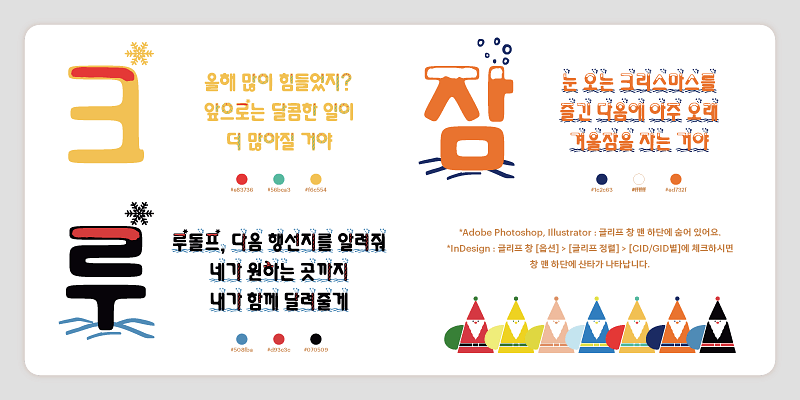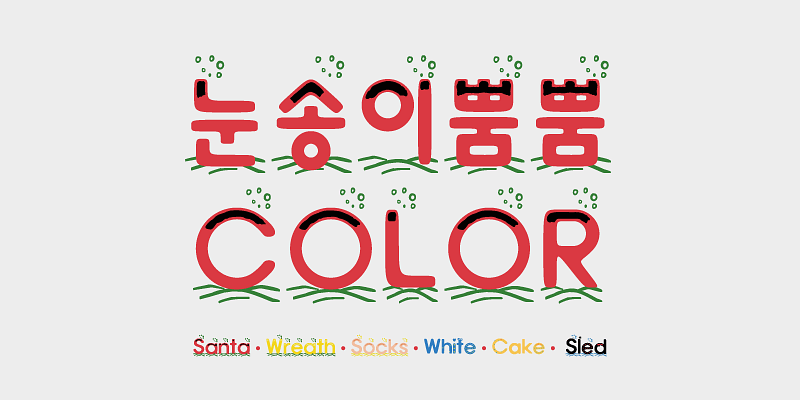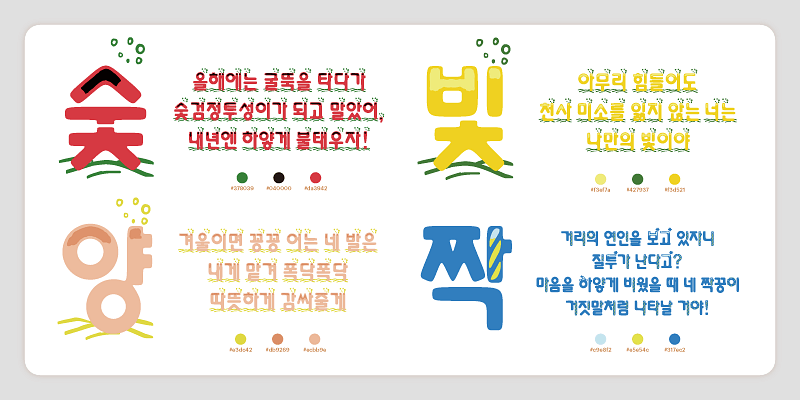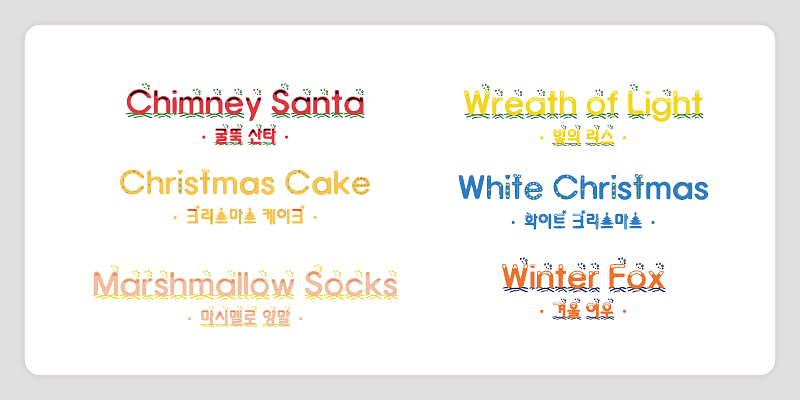
YoonC Nunsongippumppum is a vibrant color font crafted by the Yoondesign Group, a firm dedicated to exploring the evolving nature of typeface application and advancements in font technology. Distinguished by their pictorial attributes, color fonts possess color or texture within the font file itself, eliminating the need for users to manually select a text color. With Nunsongippumppum Santa, Wreath, Socks, and White, you can immerse yourself in the Christmas spirit anytime and anywhere.